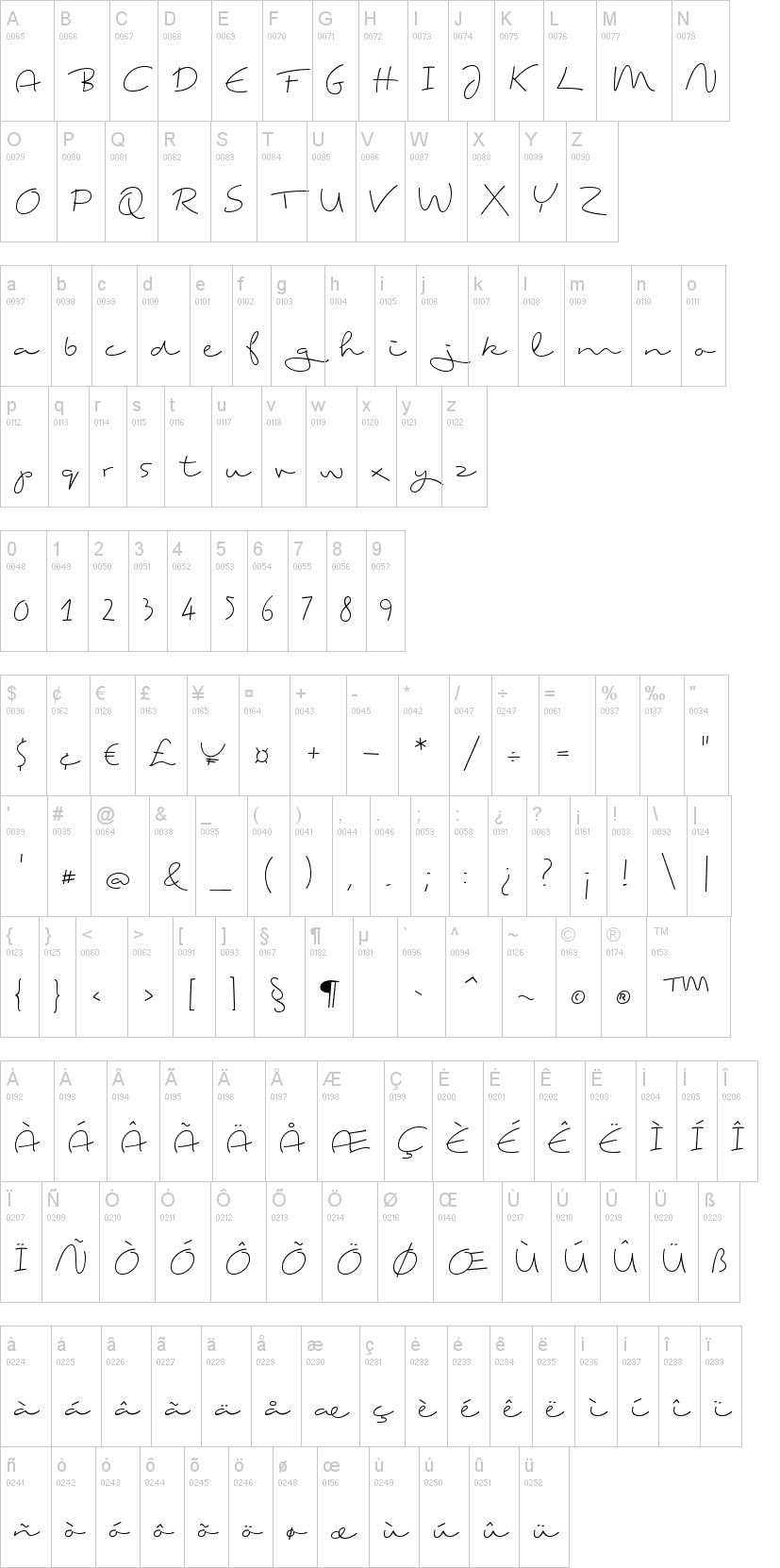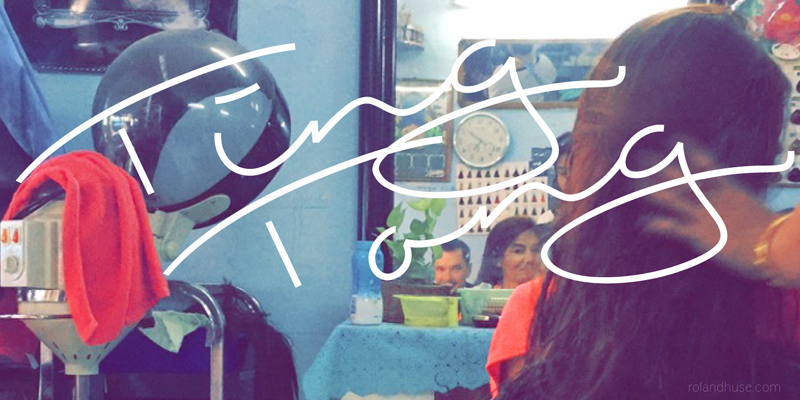
Ting Tong
Note of the authorTING TONG is a made up casual playful handwriting and is a strongly modified version of a previous font of mine with the same name that is now exclusively used and owned by a company.